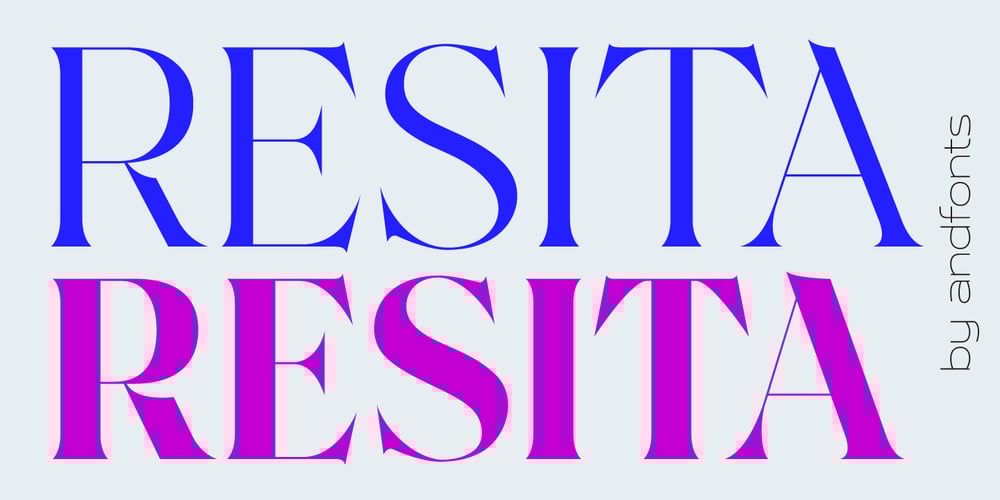
Resita
Resita font
Resita Font Family was designed by Andrii Shevchyk and published by Andfonts. Resita contains 2 styles and family package options. Introducing Resita, a sophisticated and elegant Serif font perfect for adding a touch of luxury to your design projects. Resita’s thin strokes and delicate curves create a refined and modern look that is perfect for luxury branding, editorial design, and high-end fashion projects.